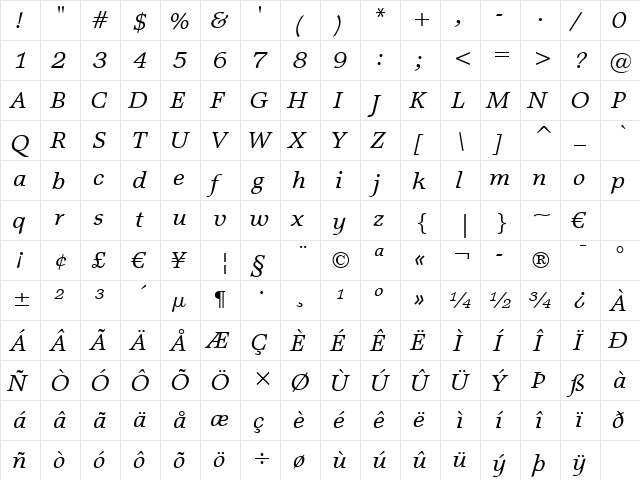
MattAntique BT Italic
Design Context for MattAntique BT Typeface
MattAntique BT has the warm character of retro typography — evoking diners, record sleeves, and the golden age of print advertising. Its italic angle brings a sense of urgency and motion to the letterforms.
Ideal for diner signage, record shop branding, 70s/80s-themed projects, and heritage product labels.
Font Pairing: Combine MattAntique BT with a simple slab or neutral sans — period-accurate companions reinforce the vintage feel without competing for attention.
Pro Tip: Lean into MattAntique BT's period character by pairing it with aged paper textures, muted colour palettes, and vintage illustration styles.